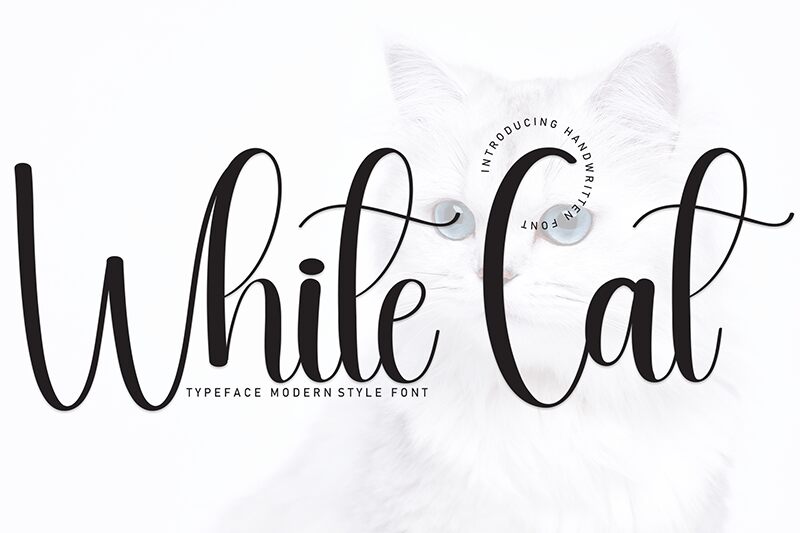
White Cat
White Cat font by Andi Moz is a refined calligraphy typeface with elegantly flowing lines and a modern script style. Combining ornamental flair with a sophisticated presence, its light, delicate strokes make for a stylish printed and digital word presentation. Utilize this beautiful font as part of invitations, greeting cards, stationery, social media posts, or posters.